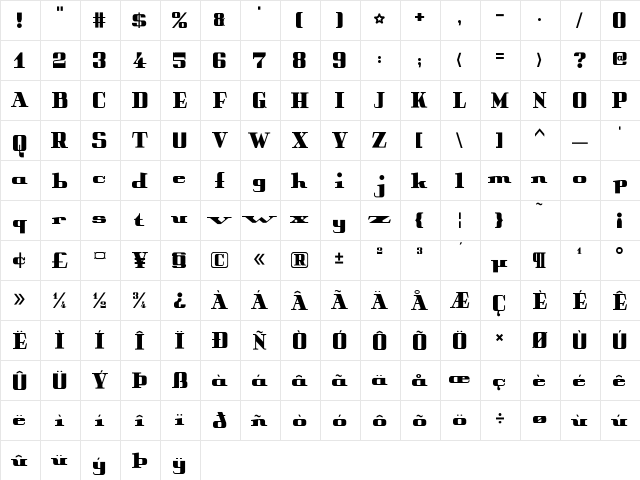
Peter Obscure Bold
Design Context for Peter Obscure Typeface
Peter Obscure is a composed and adaptable typeface that performs quietly and consistently across a wide range of design contexts. The heavy weight commands attention and anchors typographic hierarchies.